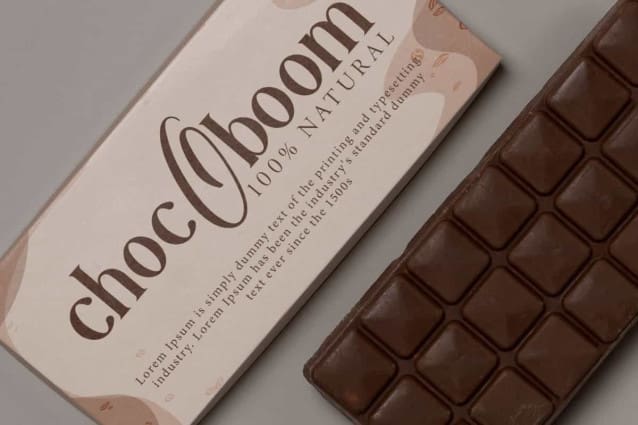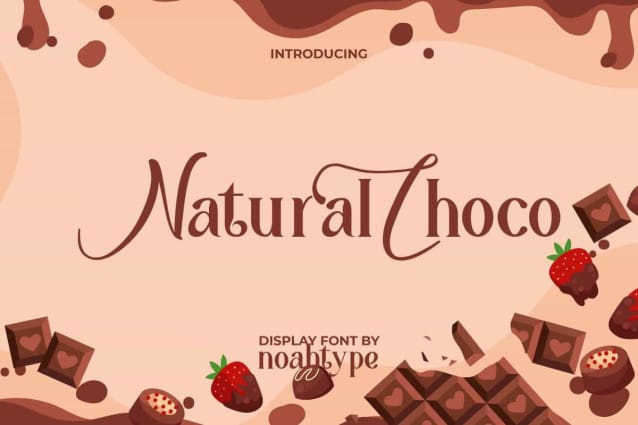
Natural Choco Font
Natural Choco Font is an adorable modern display font, created by NoahType. This font has a combination of Script for uppercase and Serif for lowercase which exudes a beautiful impression. It will be good for any designs, such as brand image, cover, custom design, invitation, label, marketing material, menu, poster, product packaging, quote, signage, stationery, web, and many more!
Natural Choco Font includes a complete set of Uppercase and Lowercase Basic Characters with different looks for both, Numerals, Punctuation, and Symbol. The characters of this font will give sweet touch and also a perfect choice for many industries, such as accessories, advertising, art, cafe, candy shop, event or wedding organizer, fashion, florist, movie, photography, printing, publishing, sport, etc.